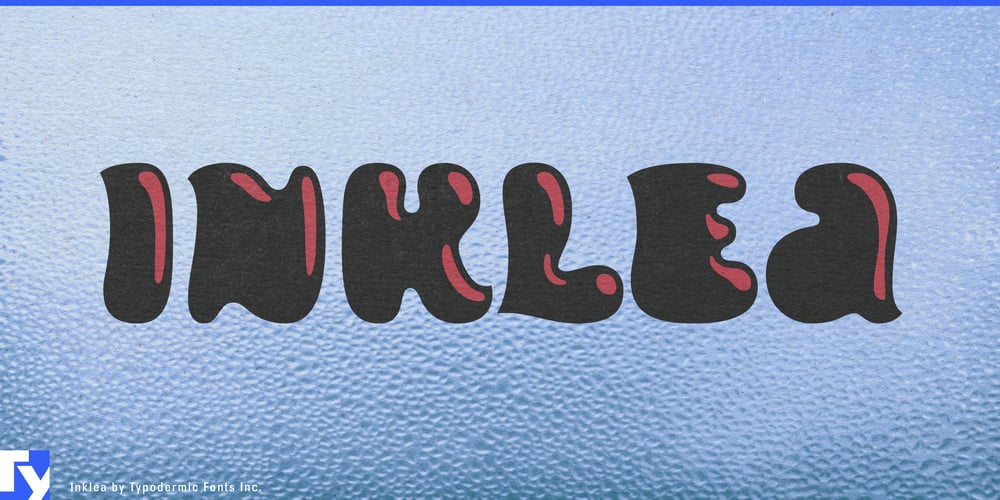
Inklea
Inklea font
Inklea Font Family was designed by Ray Larabie and published by Typodermic. Inklea contains 3 styles and family package options. Prepare to be swept away by the seductive allure of Inklea, the typeface that turns every word into a sensual dance of curves and creativity. It’s a siren song for the eyes, beckoning viewers to lose themselves in its flowing, liquid lines.Inklea doesn’t merely sit on the page; it slinks across it with the grace of a cat and the confidence of a runway model. Each letter is a masterpiece of minimalist seduction, crafted from a single, unbroken line that twists and turns with hypnotic precision. It’s as if the alphabet itself decided to take tango lessons, resulting in characters that move with a rhythm all their own. But Inklea isn’t content to merely captivate—it wants to dazzle. Enter the Shine style, the typographic equivalent of slipping into something more comfortable… and then coating it in liquid diamonds. Layer this glossy wonder over the Solid style, and watch as your words transform from mere text into glistening jewels of communication. It’s not just reading; it’s a visual feast that leaves your audience hungry for more.And for the true typographic alchemists out there, Inklea offers a playground of possibilities. Mix and match color layers like a mad scientist of style, creating combinations that range from subtle elegance to eye-popping psychedelia. Want to add some gravitational pull to your design? Sprinkle in some emboss and drop shadow effects, and watch as your words seem to float off the page, demanding attention with three-dimensional charisma. Inklea isn’t just multilingual; it’s a polyglot extraordinaire, fluent in a United Nations’ worth of Latin-based European languages. From the fjords of Norway to the sun-drenched plazas of Spain, Inklea is ready to whisper sweet nothings in dozens of tongues, ensuring your message seduces audiences across continents.Choosing Inklea for your project isn’t just a design decision—it’s a declaration of intent to make the world sit up and take notice. It’s for the visionaries, the trendsetters, the designers who understand that in a world of straight lines and sharp angles, sometimes you need to embrace the curve to stand out. So whether you’re crafting a logo that needs to smolder with sensual energy, designing a website that aims to mesmerize visitors into staying just a little bit longer, or simply want to add some typographic spice to your social media presence, Inklea is your accomplice in visual seduction.